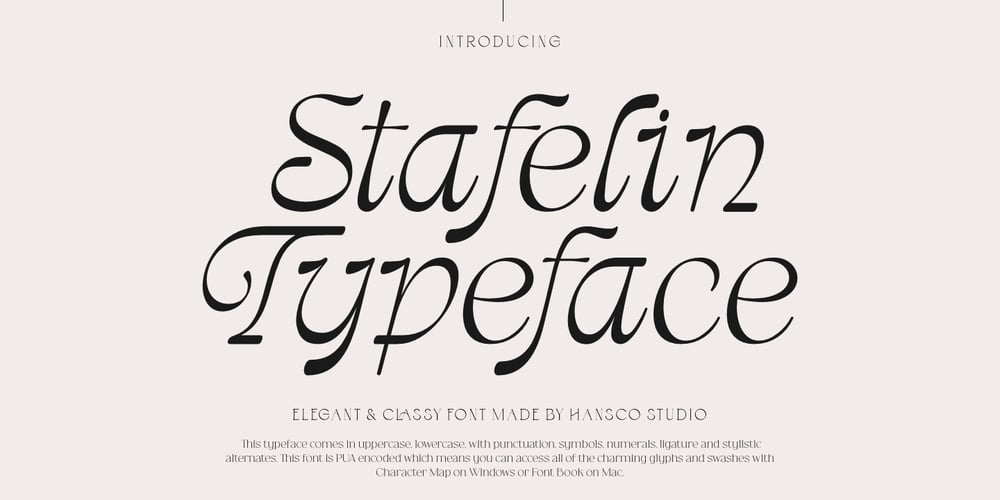
Stafelin Font Family was designed by Burhan Afif and published by HansCo. Stafelin contains 1 styles and family package options. This font looks elegant and will fit well in any design and very recommended for logo, crafts, posters, books, branding, quotes, print templates, packaging, invitations, product labels, advertising, wedding project and more. This typeface comes in uppercase, lowercase, with punctuation, symbols, numerals, ligature and stylistic alternates. This font is PUA encoded which means you can access all of the charming glyphs and swashes with Character Map on Windows or Font Book on Mac.